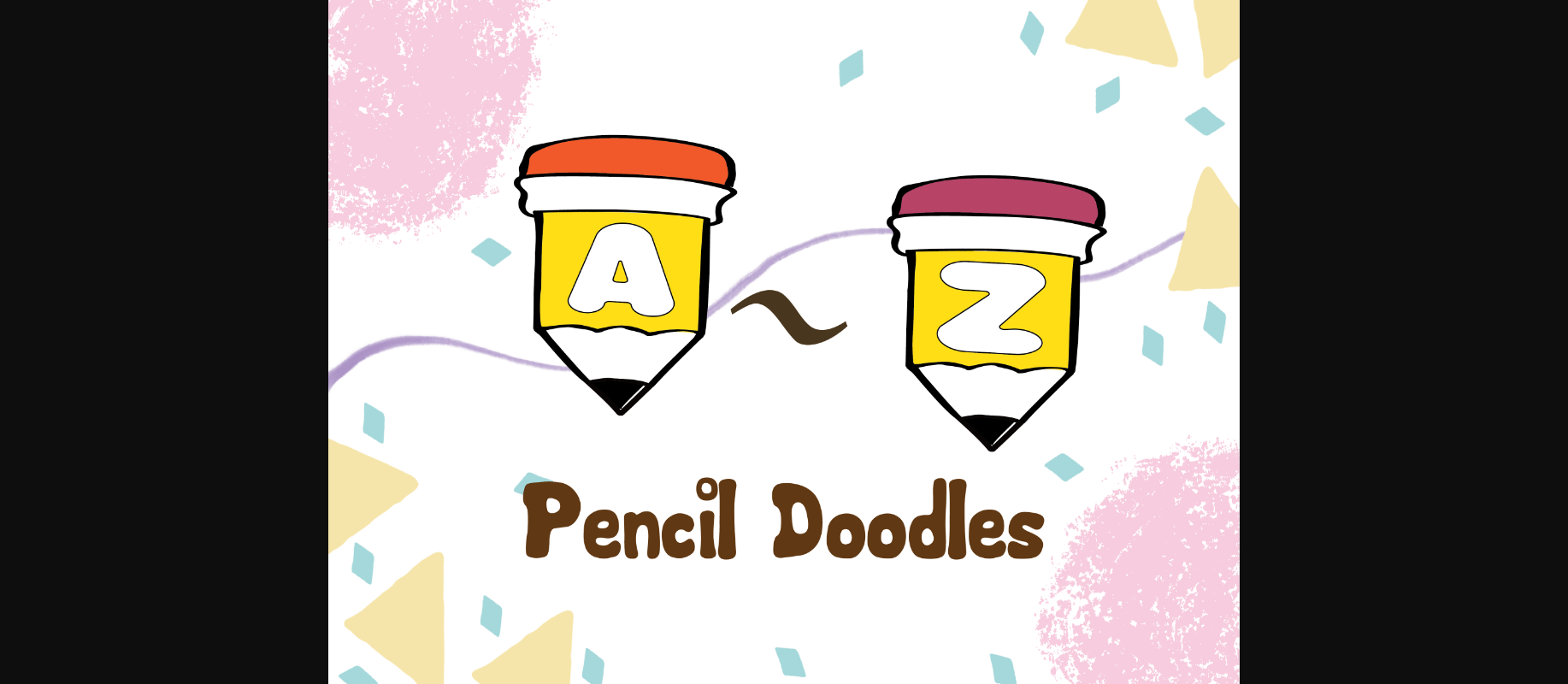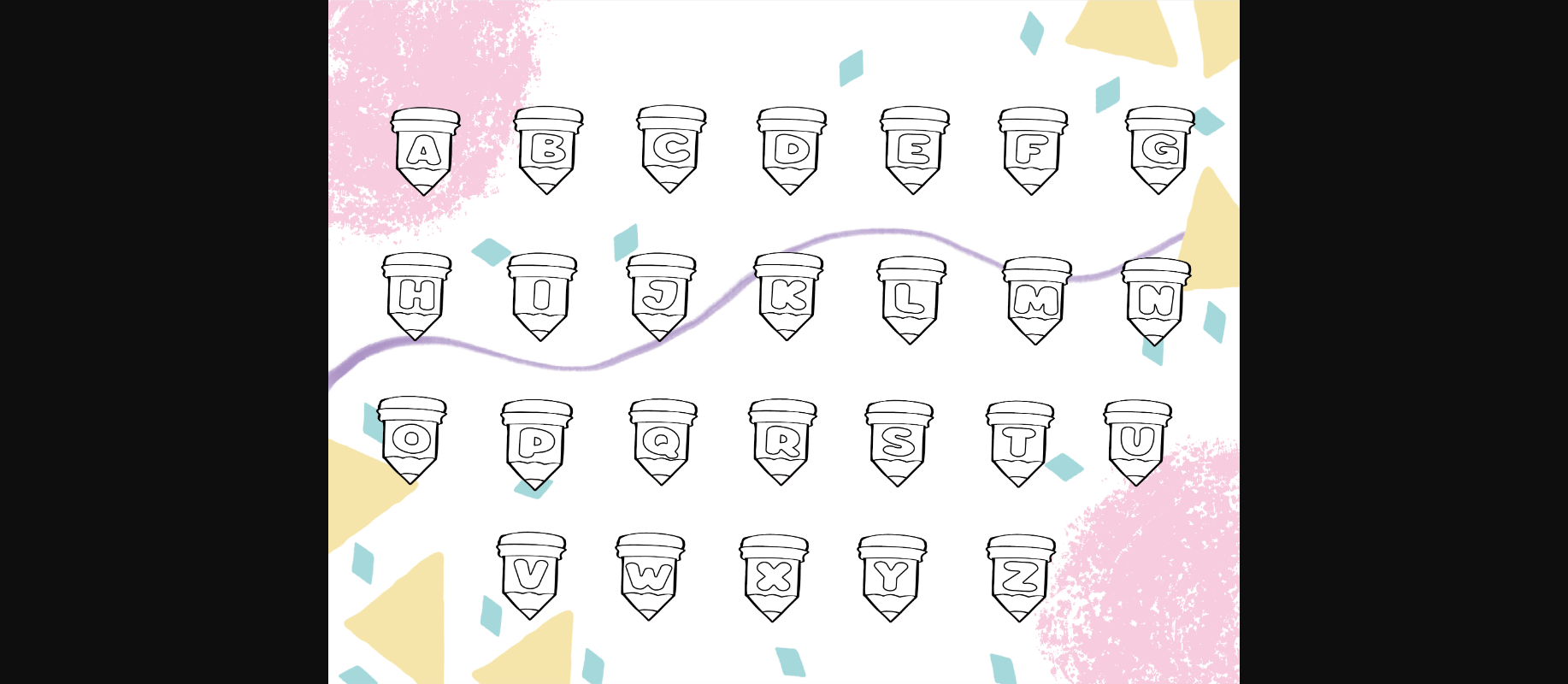
Pencil Doodles Font
About Pencil Doodles Font
Pencil Doodles is a fun and interesting decorative font. Its friendly vibe is perfect for creating lovely designs, ranging from stickers to posters, planners, and more!